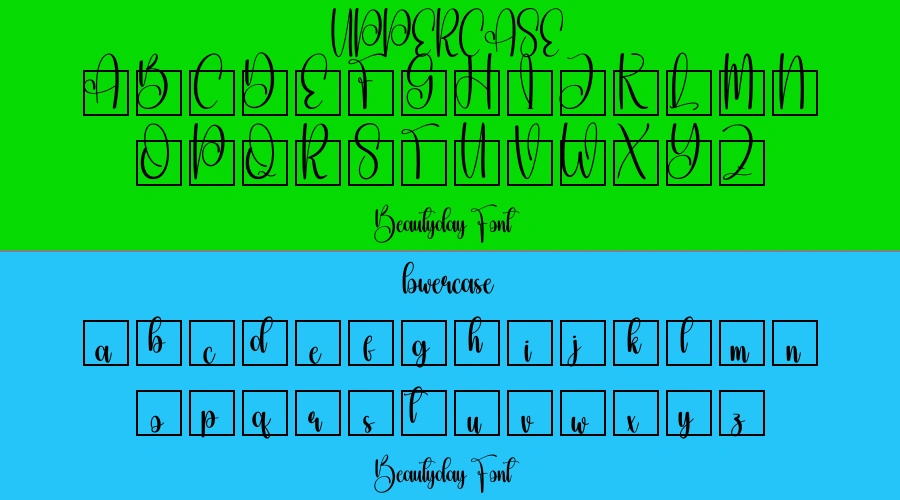
About Beautyday Font
Beautyday Font embodies typographic excellence through its masterful combination of expressive energy and technical precision. Created for presentation decks, this typeface delivers exceptional clarity and professional standards across all applications. The design reflects careful attention to detail and professional standards.
Advanced capabilities include distinctive refined proportions and versatile proportional figures, giving designers creative control. When used in technical diagrams, Beautyday Font exhibits remarkable special character access. The harmonious balance between character width and standards alignment sets this typeface apart.